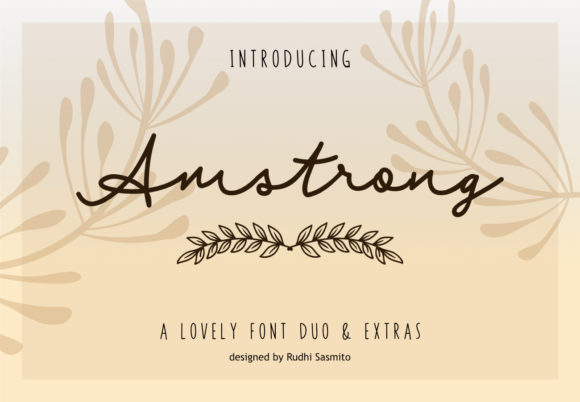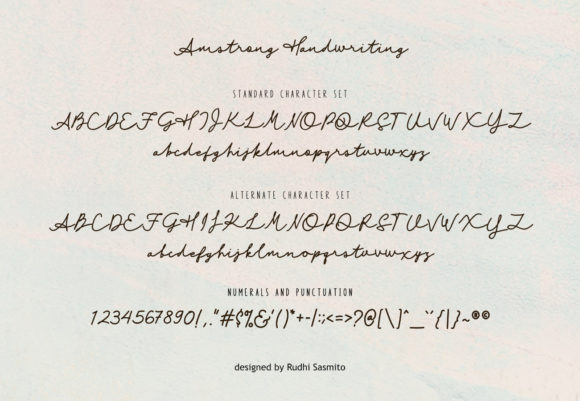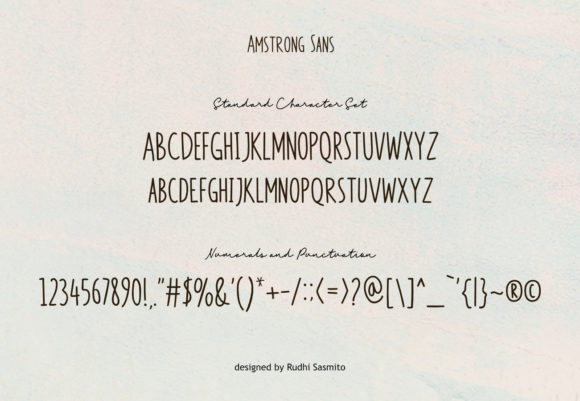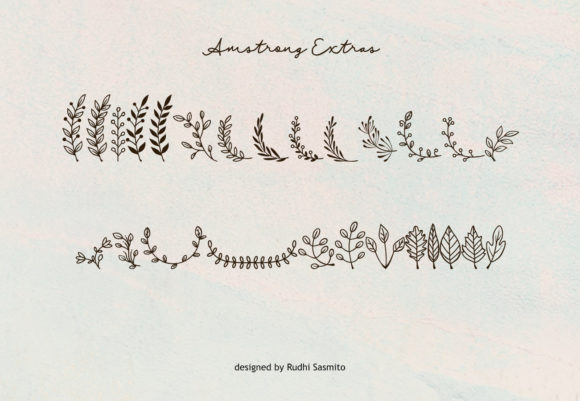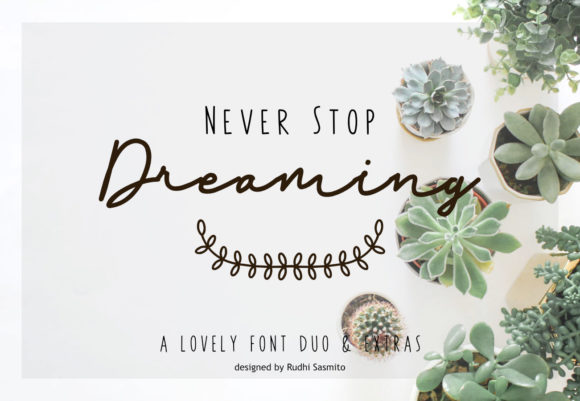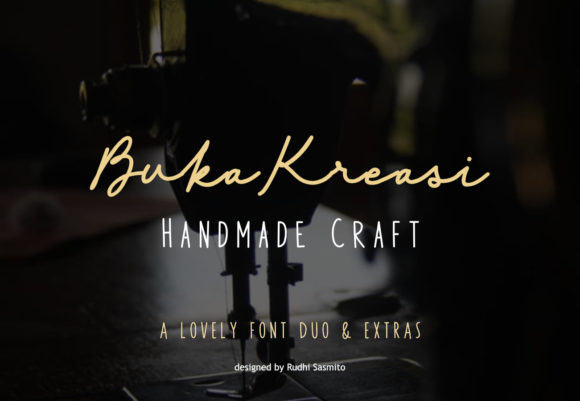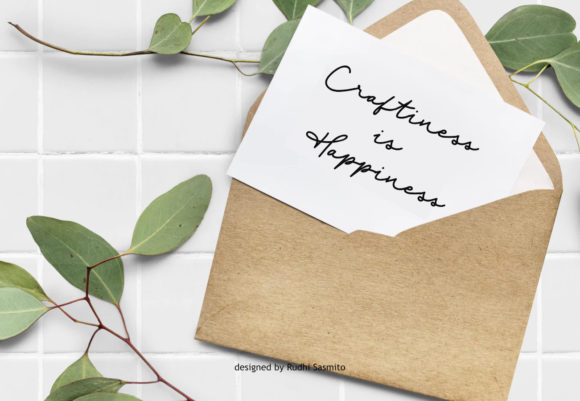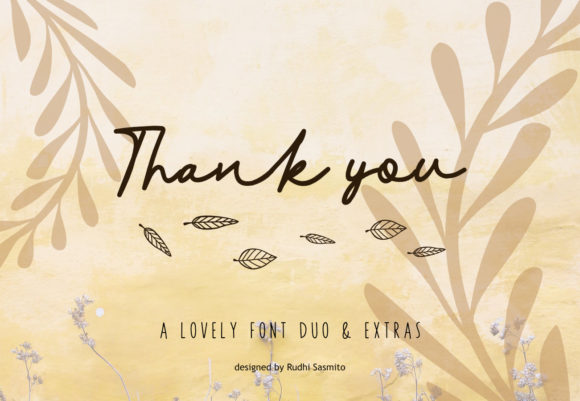
Amstrong Duo Font
About Amstrong Duo Font
The Amstrong is a beautiful and modern handwritten duo. It includes elegant variations which can be combined perfectly. This luxurious font is stylish and versatile so it can be used in a plethora of designs in both digital and print applications.
It’s perfect for signatures, watermarks on photography, quotes, wedding, fashion, letters, invitations, business cards, logos, branding, magazines, social media, advertisements, product designs, and many other design projects.